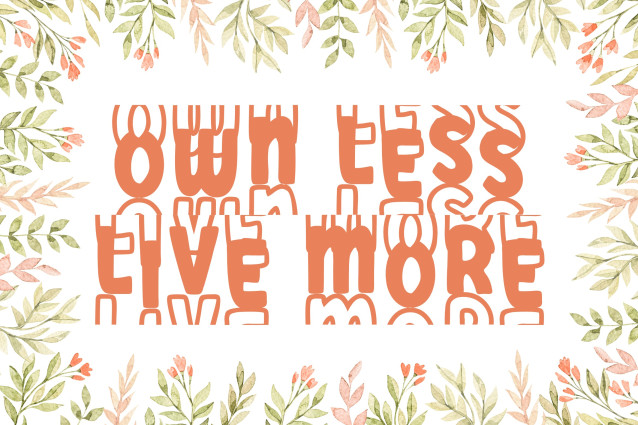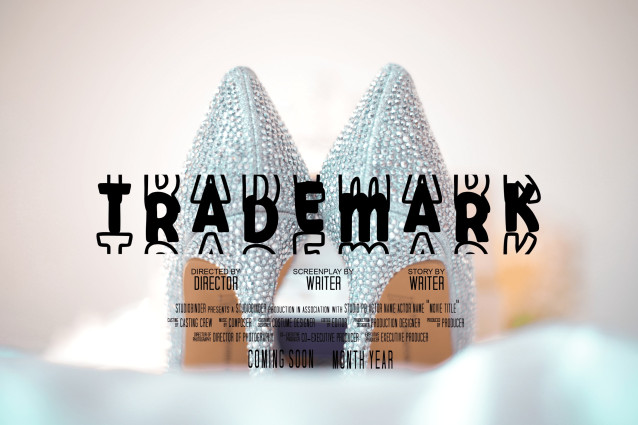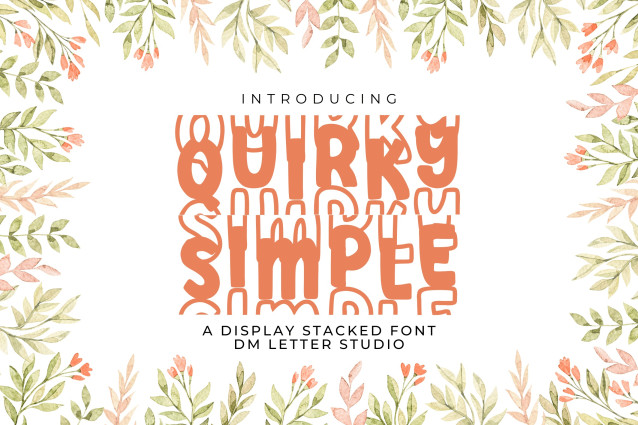
Quirky Simple Stacked Font
Quirky Simple Stacked Font is a clean and cheerful stacked display font that brings simplicity and charm together. Its upright, blocky letterforms with a soft playful twist make it ideal for classroom prints, kids’ labels, branding, social media posts, and anything needing a fun yet approachable look.